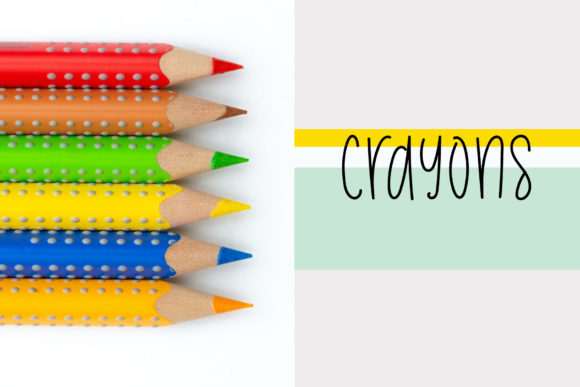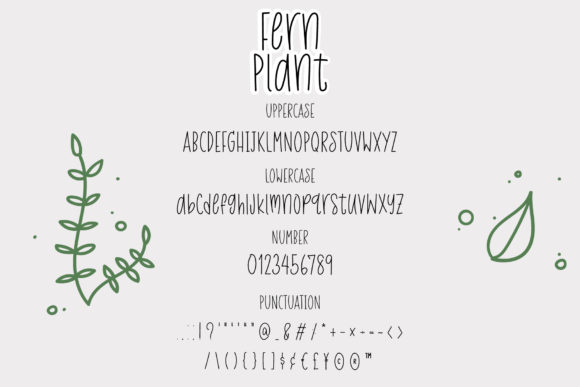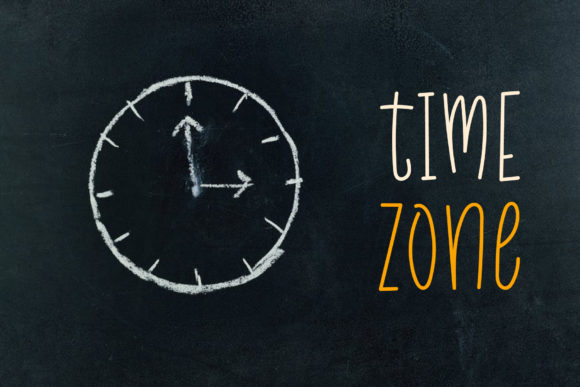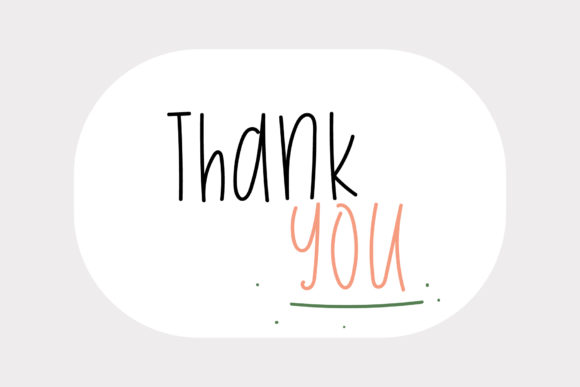
Fern Plant Font: A Sweet and Simple Handwritten Font for Your Design Needs
Fern Plant Font is a charming and elegant handwritten font that has been making waves in the design community. Its natural and unique style makes it incredibly fitting for a wide range of designs, from DIY crafts to professional branding projects. In this article, we’ll dive into the world of Fern Plant Font and explore its features, uses, and benefits for designers and crafters alike.
The Characteristics of Fern Plant Font
Fern Plant Font is a sweet and simple handwritten font that boasts a distinctive and eye-catching style. Its letters are carefully crafted to resemble the delicate and lacy patterns found in nature, evoking the image of a fern plant. The font’s natural and organic feel makes it perfect for designs that require a personal touch, such as:
- DIY crafts and tutorials
- Handmade product labels and packaging
- Blog and social media graphics
What Makes Fern Plant Font So Versatile?
The beauty of Fern Plant Font lies in its versatility. Its unique style can be used in a multitude of design projects, from:
- Branding and logos: Create a memorable and distinctive brand identity with Fern Plant Font. Its elegant and sophisticated style makes it perfect for businesses that want to stand out from the crowd.
- Stationery and invitations: Add a touch of elegance and whimsy to your stationery and invitations with Fern Plant Font. Its handwritten style makes it perfect for special occasions, such as weddings, baby showers, and birthday parties.
- Digital and print media: Use Fern Plant Font in your digital and print media projects, such as brochures, flyers, and social media graphics. Its clear and legible style makes it easy to read and understand.
Benefits of Using Fern Plant Font
Fern Plant Font offers a range of benefits for designers and crafters, including:
- High-quality design: Fern Plant Font is designed with high-quality and precision, ensuring that it looks great in any design project.
- Unique style: Fern Plant Font’s unique style sets it apart from other fonts, making it perfect for designers who want to create distinctive and memorable designs.
- Time-saving: With Fern Plant Font, you can create professional-looking designs in no time, saving you time and effort.
Tips and Tricks for Using Fern Plant Font
Here are some tips and tricks for getting the most out of Fern Plant Font:
- Pair it with other fonts: Fern Plant Font pairs well with other fonts, such as sans-serif fonts and script fonts. Experiment with different font combinations to create unique and interesting designs.
- Use it in combination with images: Fern Plant Font looks great when paired with images, especially those with a natural or organic theme. Use it to add text to your images, such as captions or quotes.
- Experiment with colors and textures: Fern Plant Font looks great in a range of colors and textures. Experiment with different colors and textures to add depth and interest to your designs.
Fern Plant Font is a sweet and simple handwritten font that offers a range of benefits and uses for designers and crafters. Its natural and unique style makes it incredibly fitting for a wide range of designs, from DIY crafts to professional branding projects. With its ease of use, high-quality design, and unique style, Fern Plant Font is a must-have for any designer or crafter looking to add a personal touch to their designs.